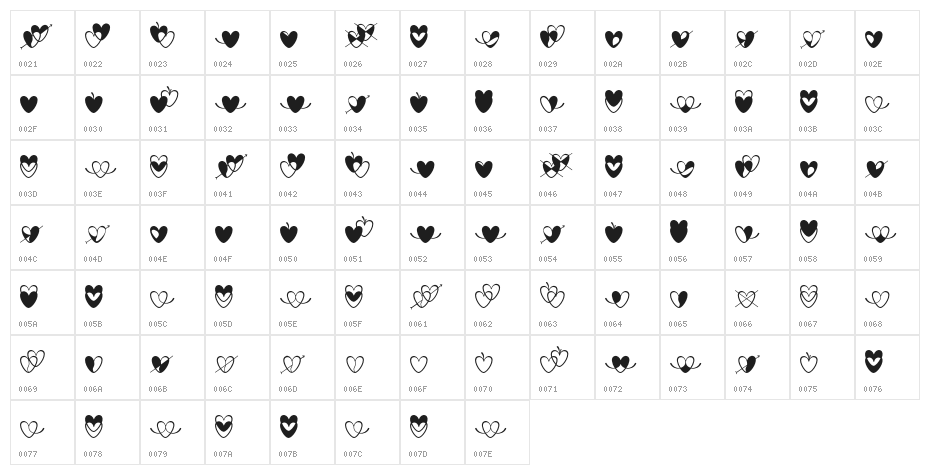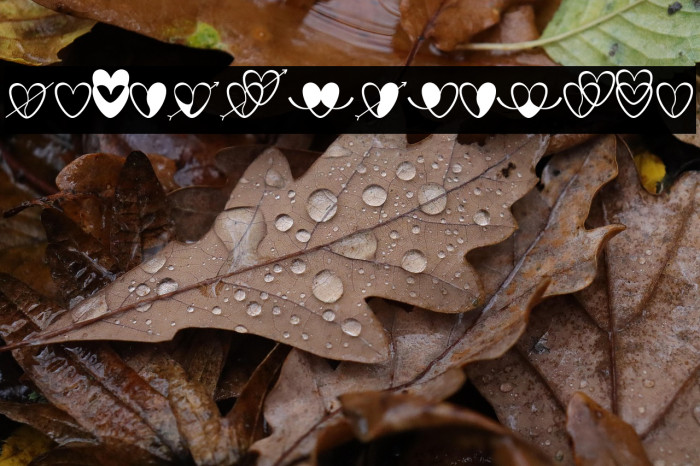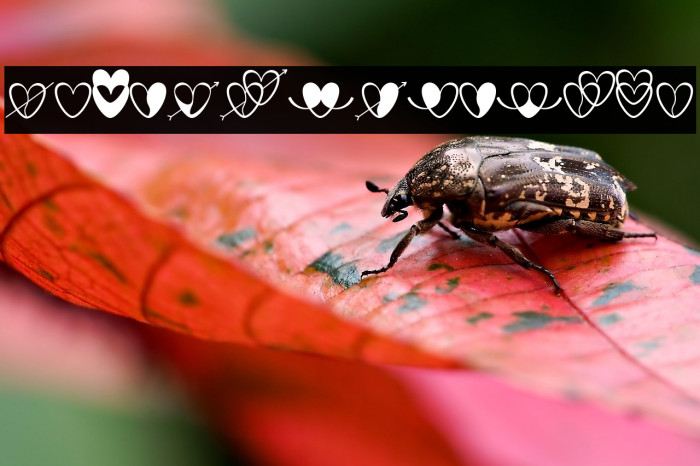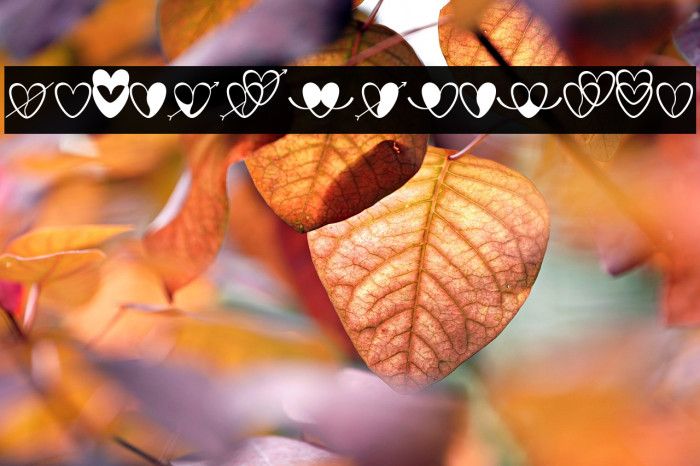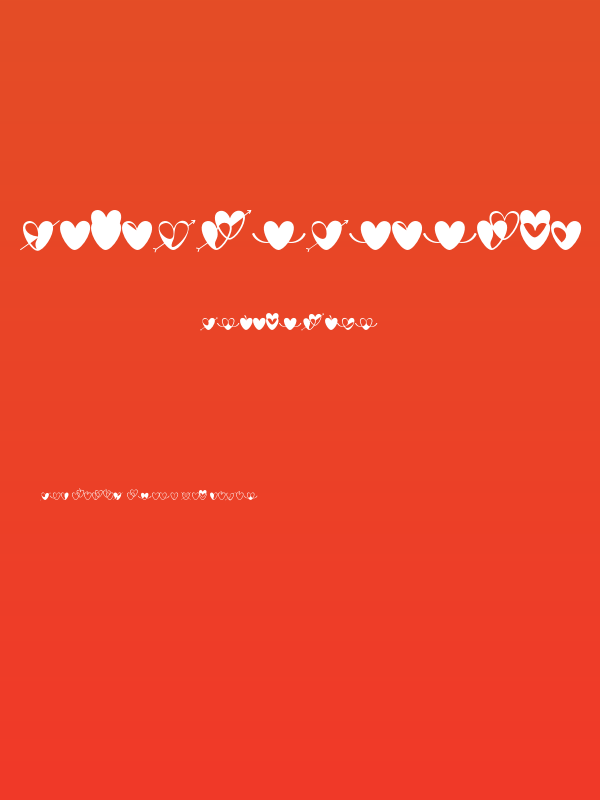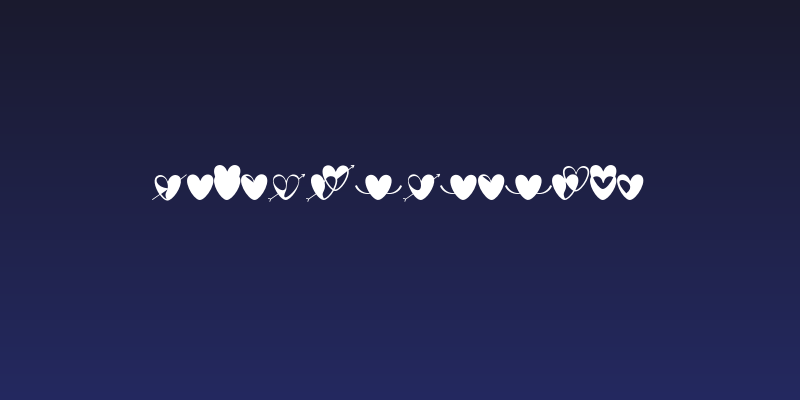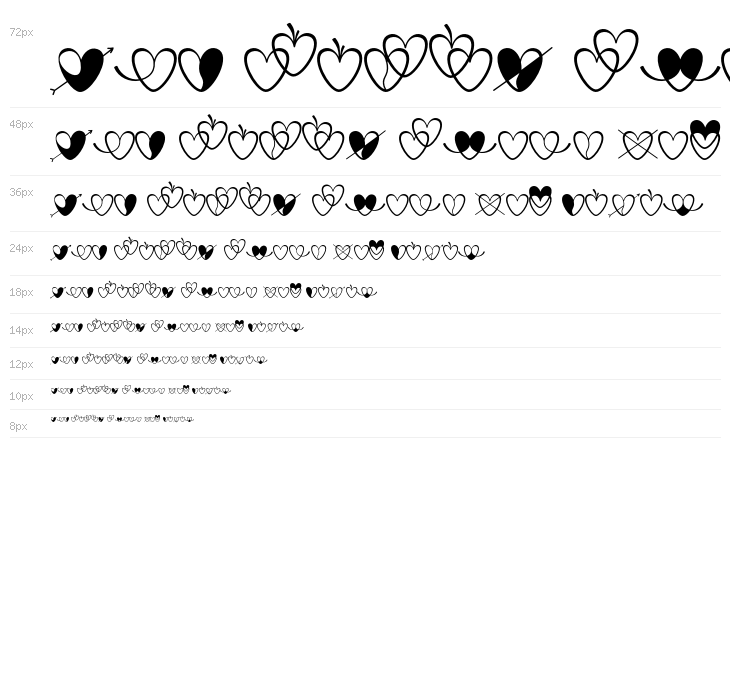
love-artdesign Font
love-artdesign Description
This design features a series of heart shapes intertwined with arrows, creating a playful and romantic visual theme. The hearts vary in size and style, with some filled and others outlined, adding a dynamic and whimsical touch. The arrows weave through the hearts, suggesting movement and connection, making it ideal for projects that aim to convey love, affection, or a sense of unity. The overall design is bold and eye-catching, perfect for decorative purposes.
Use CaseLogos, Decorative elements, Themed invitations
Proposed ProjectsThis design is perfect for Valentine's Day cards, wedding invitations, love-themed posters, or any project that requires a romantic or affectionate touch.